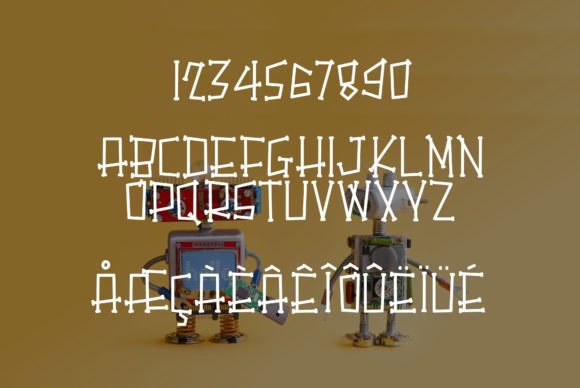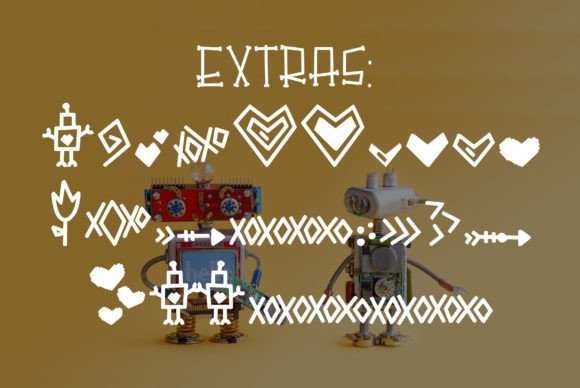
Introduction to Robot Love Font Font
Fonts play a crucial role in design, and the Robot Love Font font is a typeface that brings both character and versatility to any project. Whether you’re working on a branding project, a website, or a print design, the Robot Love Font font offers a unique style that can elevate your work.
Introducing “Robot Love” – a quirky and playful display font that’s perfect for adding a touch of techy charm to your designs.
With its robotic-inspired lines and geometric structure, “Robot Love” is ideal for futuristic, sci-fi, or tech-themed projects Whether you’re creating posters, logos, or invitations, this font will bring a fun and mechanical vibe to your work.
Key Features of Robot Love Font Font
Why Choose Robot Love Font Font?
The Robot Love Font font is more than just a typeface – it’s a design tool that helps you communicate your message with style and clarity. Its unique character set and versatile design make it suitable for a wide range of applications, from elegant invitations to bold headlines.
With its carefully crafted letterforms and balanced proportions, the Robot Love Font font ensures readability and visual appeal across all mediums.
What makes Robot Love Font font special?
The Robot Love Font font stands out with its unique design, exceptional readability, and versatility across various design applications.